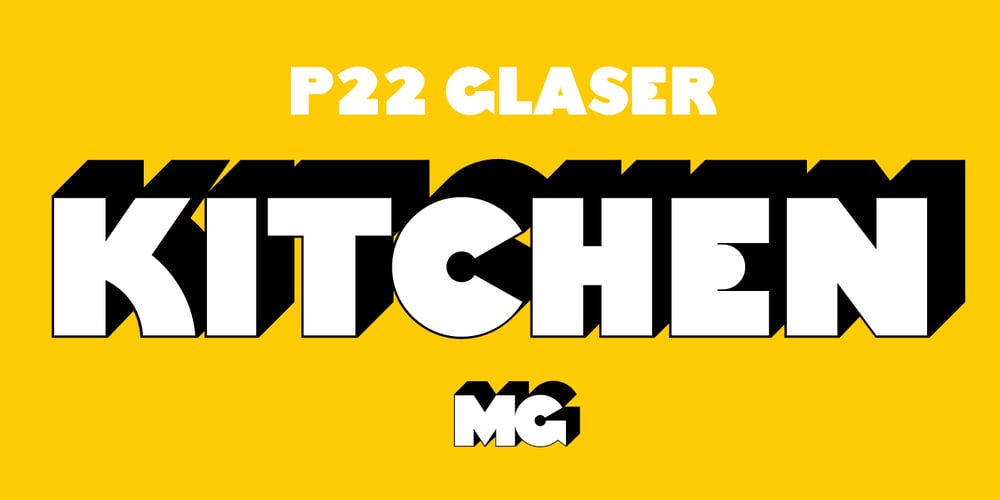
P22 Glaser Kitchen Font Family was designed by Milton Glaser, James Grieshaber and published by P22 Type Foundry. P22 Glaser Kitchen contains 1 styles and family package options. Milton Glaser’s Kitchen Typeface from the mid 1970s exemplifies the bold 3-D art deco revival genre that was a trademark of the Glaser style. This typeface resulted from his involvement in the design of the The Big Kitchen in the World Trade Center’s concourse in New York City.The new P22 Glaser Kitchen takes on the technical challenge of overlapping 3-D shadows by offering two styles. P22 Glaser Kitchen Regular is spaced out so that the shadows do not overlap the white spaces of the neighboring letters. Whereas the P22 Glaser Kitchen 3D Fill and 3D Shadow can be used layered on top of one another to achieve the tight spacing intended by Glaser. P22 Glaser Kitchen was based on original drawings and phototype proofs from the Milton Glaser Studios archives. Typographic punctuation and sorts were imagined by James Grieshaber to work with Glaser’s design, as well as diacritics to accommodate most European languages. Over the years there have been many typefaces that borrowed heavily from the Glaser designs, but these are the only official fonts approved by Milton Glaser Studio and the Estate of Milton Glaser.